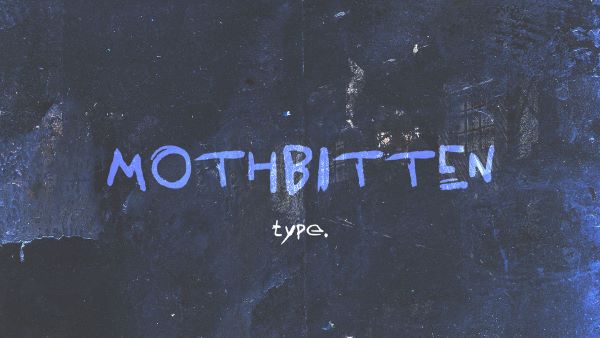
Mothbitten Font
Mothbitten by María Paula Acuña is a free handwritten font font with an expressive, slightly frayed quality — its letterforms carrying the texture of ink on paper, the scrawl of someone writing quickly and honestly. Tagged by its creator alongside the aesthetic universe of “tortured poets” and scribbled marginalia, Mothbitten suits any design context that wants to feel raw, personal, and literary: editorial layouts, poetry publications, book covers, journaling aesthetics, social media graphics, and branding that leans into authentic imperfection. A demo version is available free for personal use.